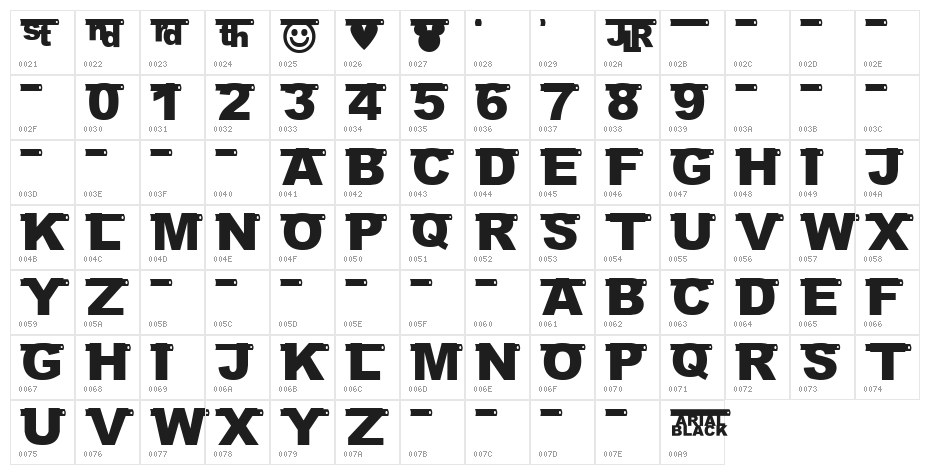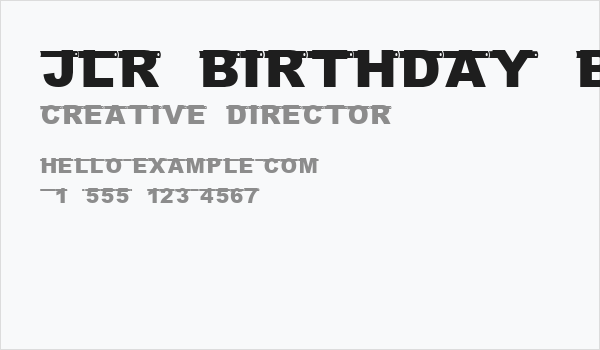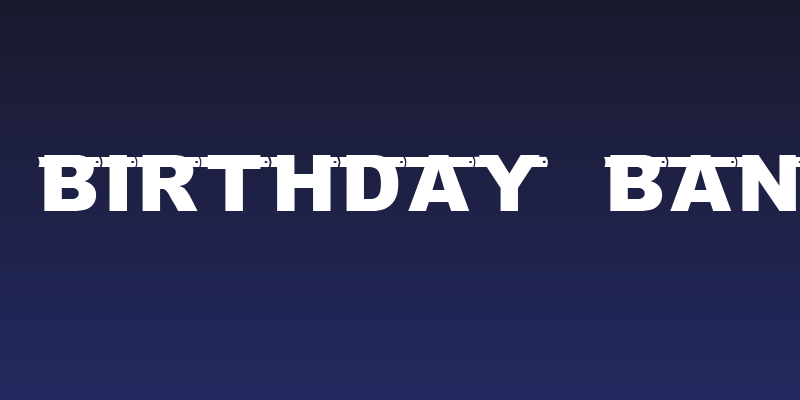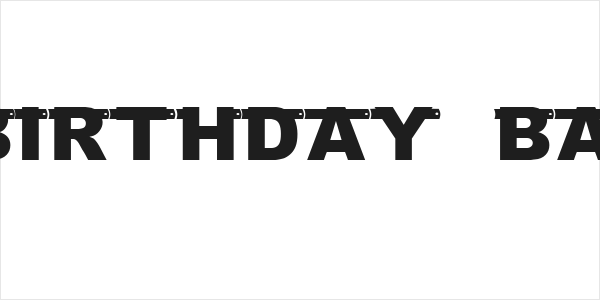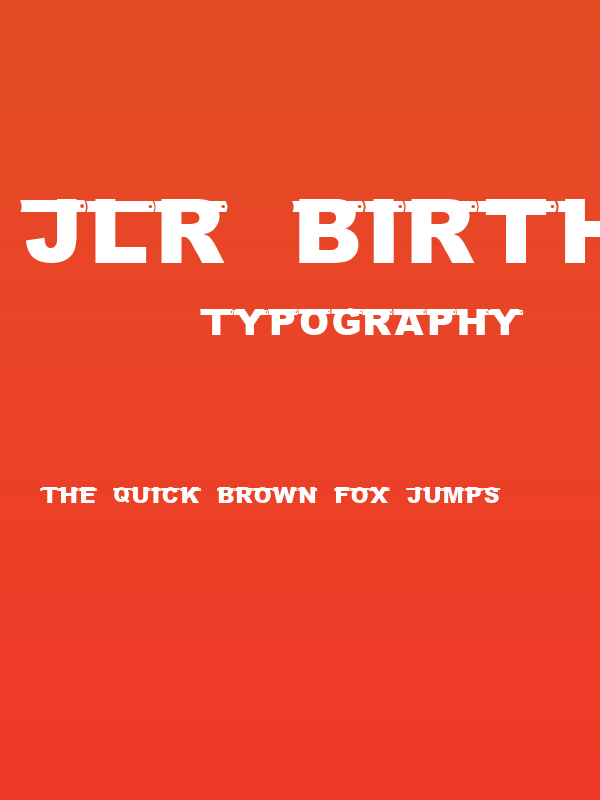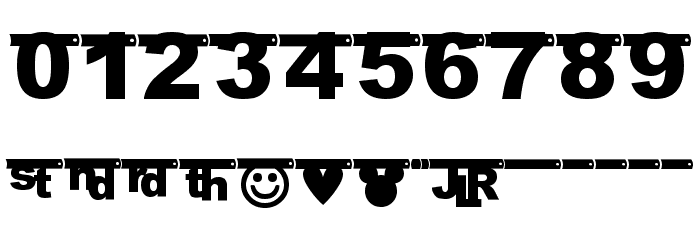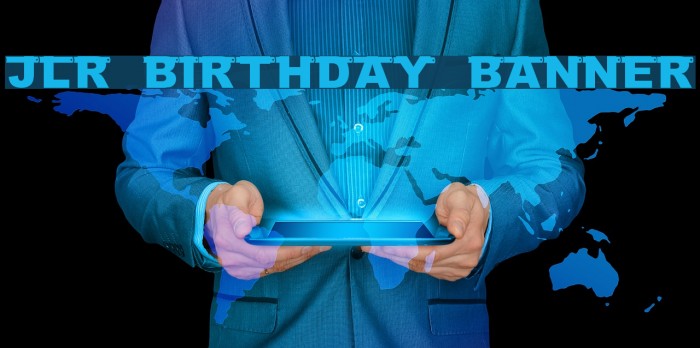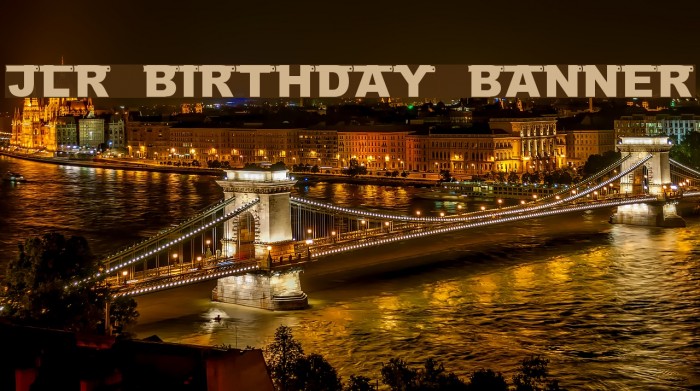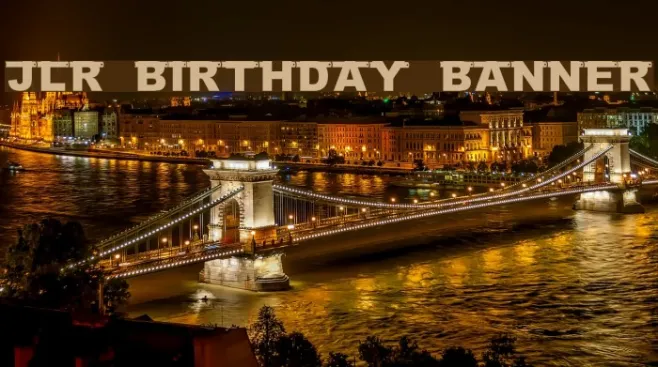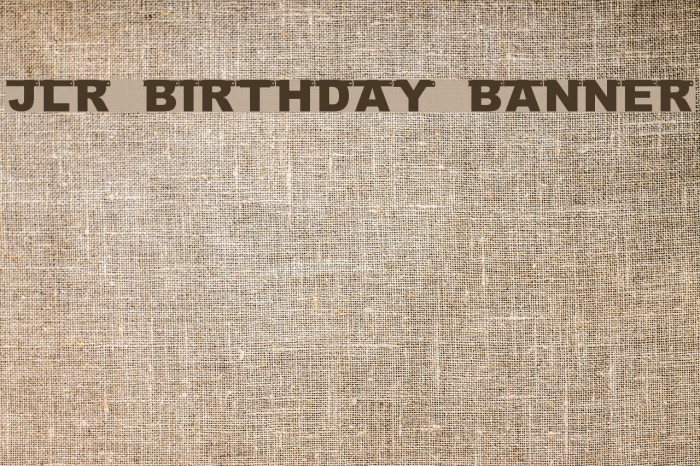
JLR Birthday Banner Font
JLR Birthday Banner Description
This font features bold, uppercase letters with a strong presence, ideal for making impactful statements. The characters are evenly spaced, with a consistent stroke width that gives a uniform appearance. The numbers and special characters maintain the same boldness, ensuring a cohesive look across all elements. The font's design is straightforward yet powerful, making it suitable for attention-grabbing headlines or banners. Its simplicity and clarity make it easy to read from a distance, enhancing its effectiveness in various display settings.
| Use Case | Headlines, Banners, Posters |
| Proposed Projects | Perfect for birthday banners, event posters, and promotional materials where a strong visual impact is needed. |